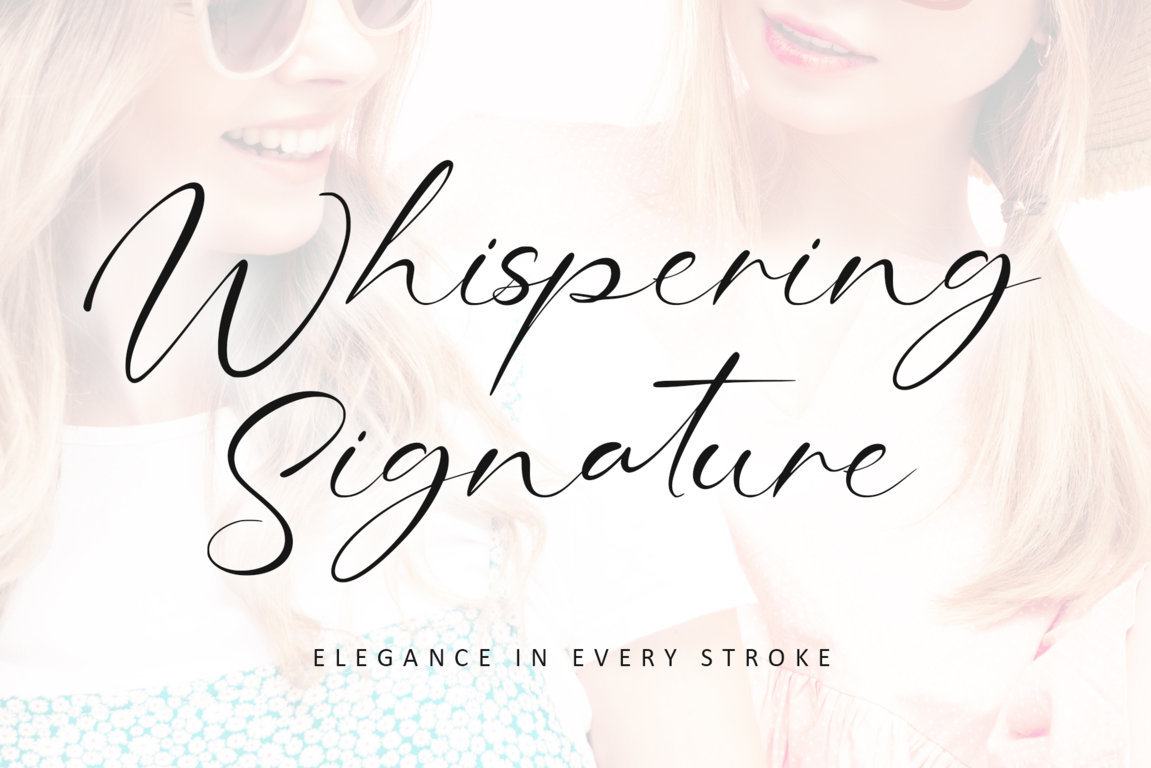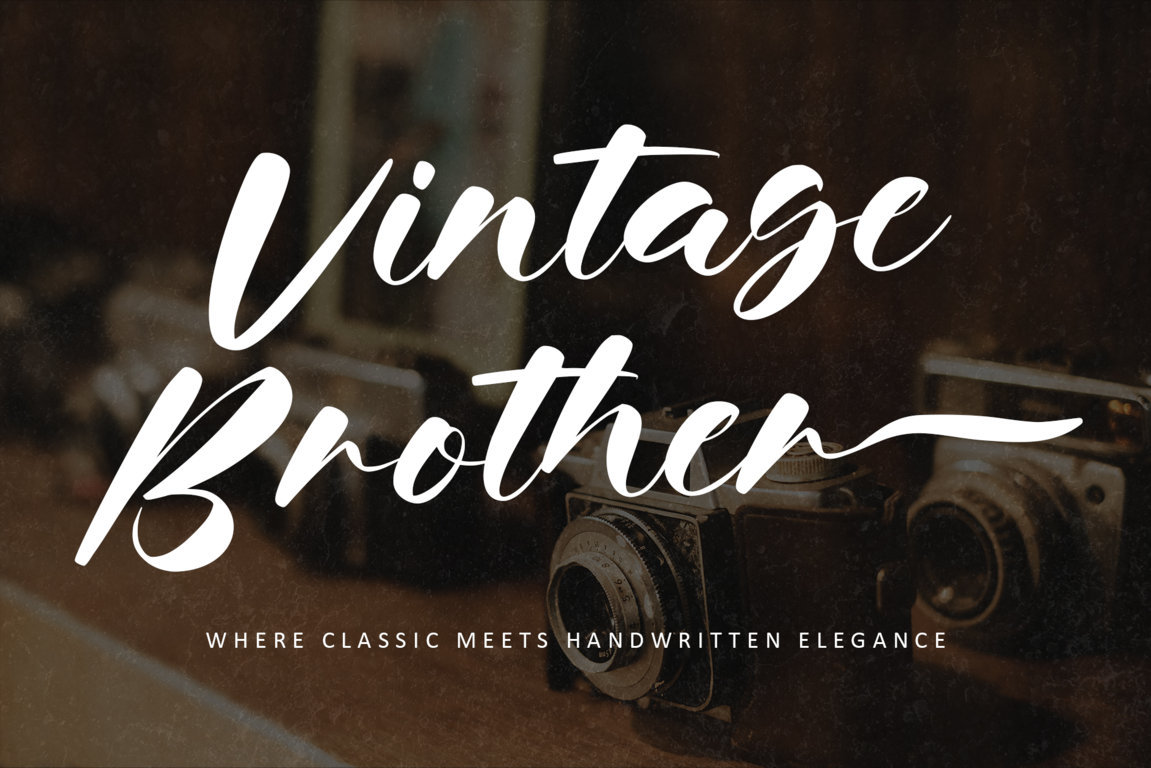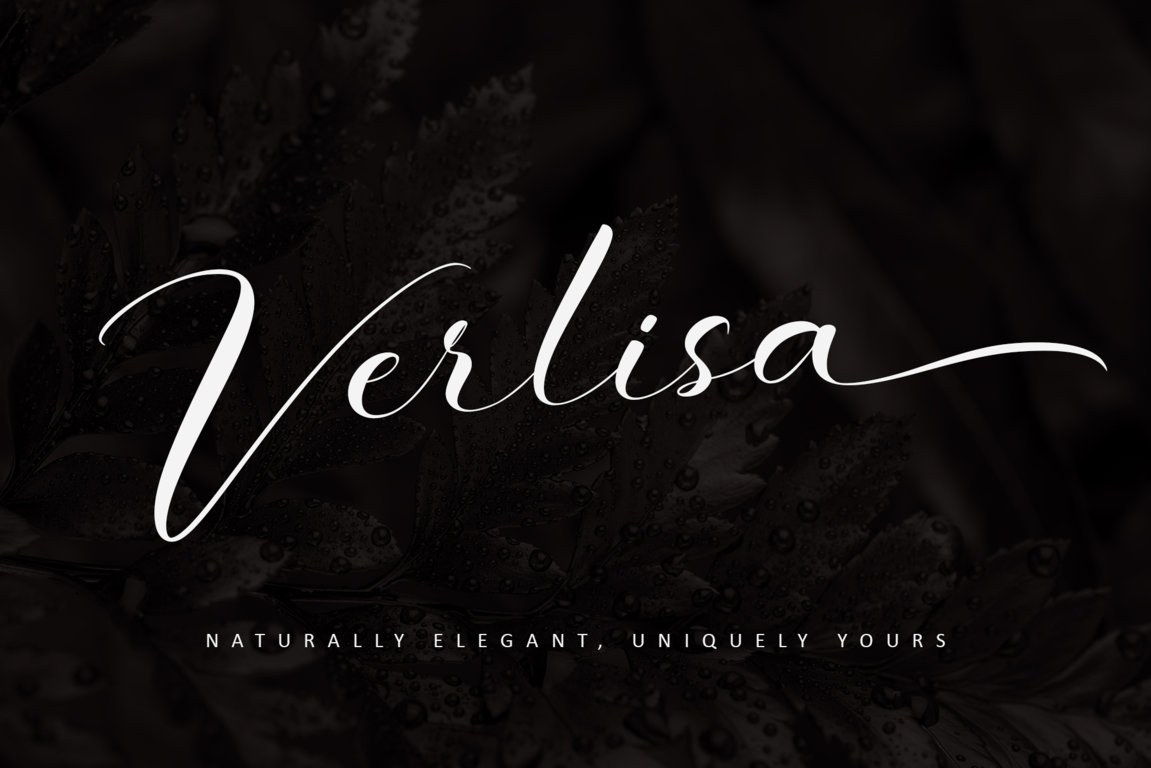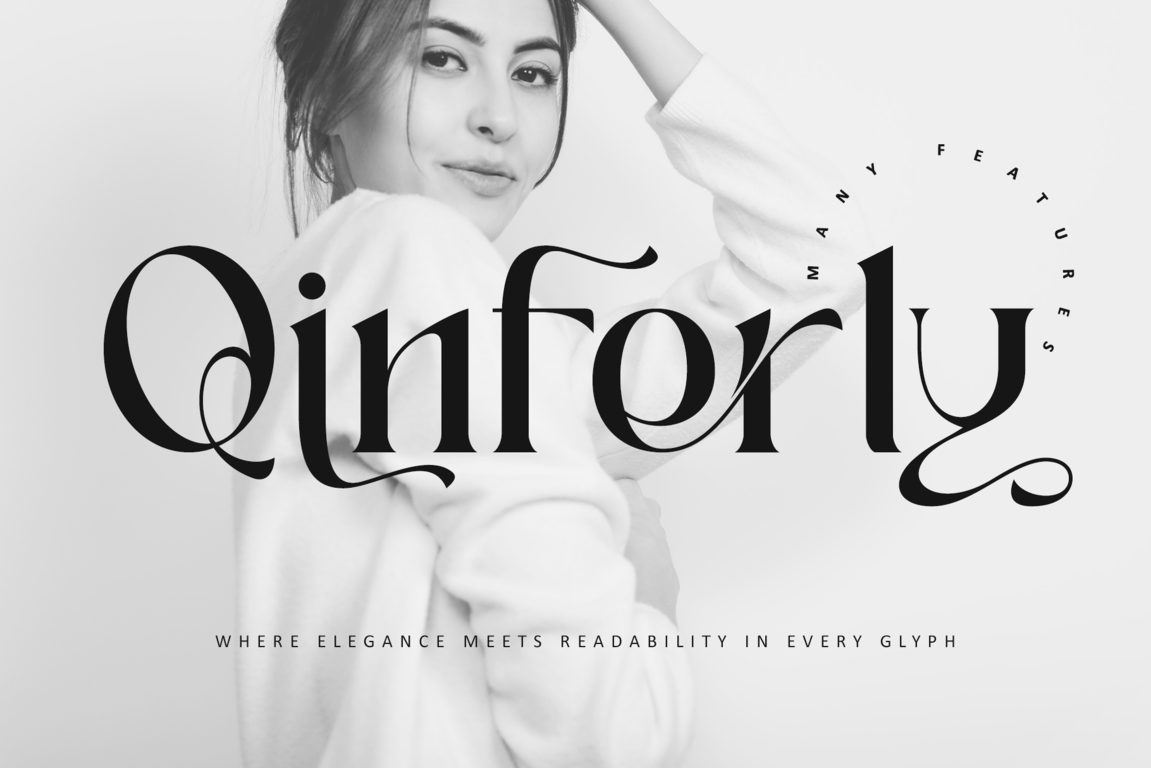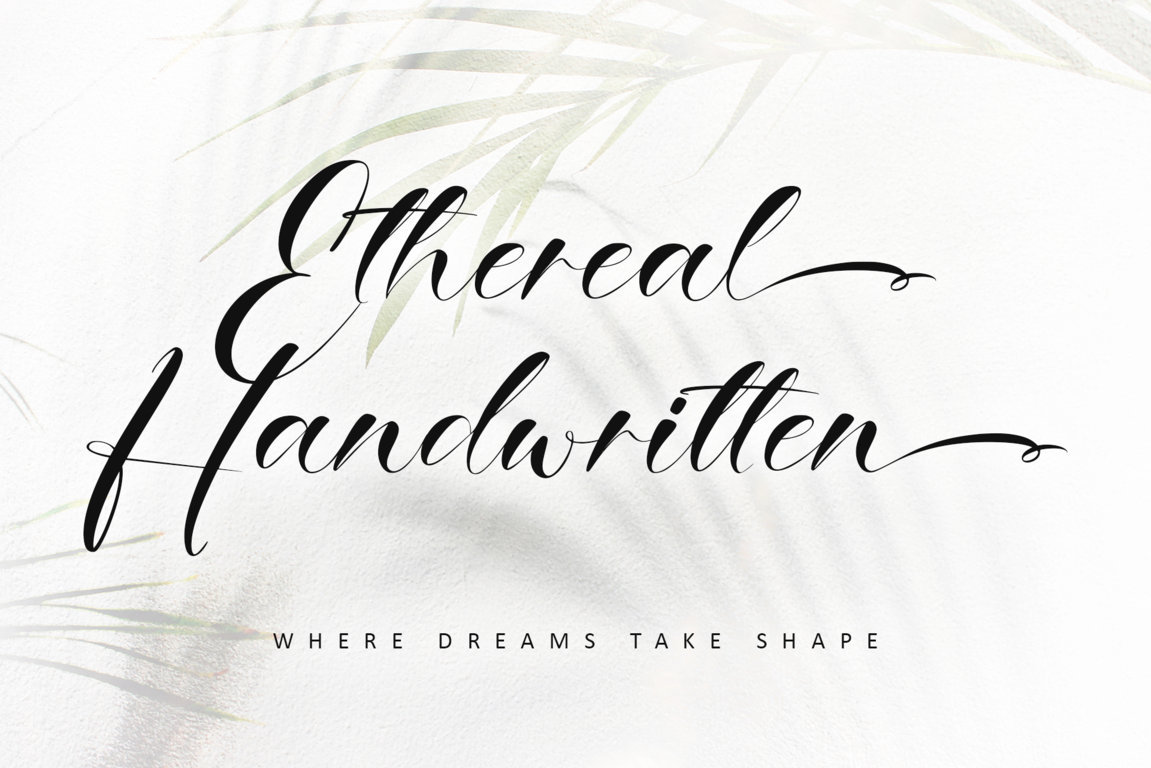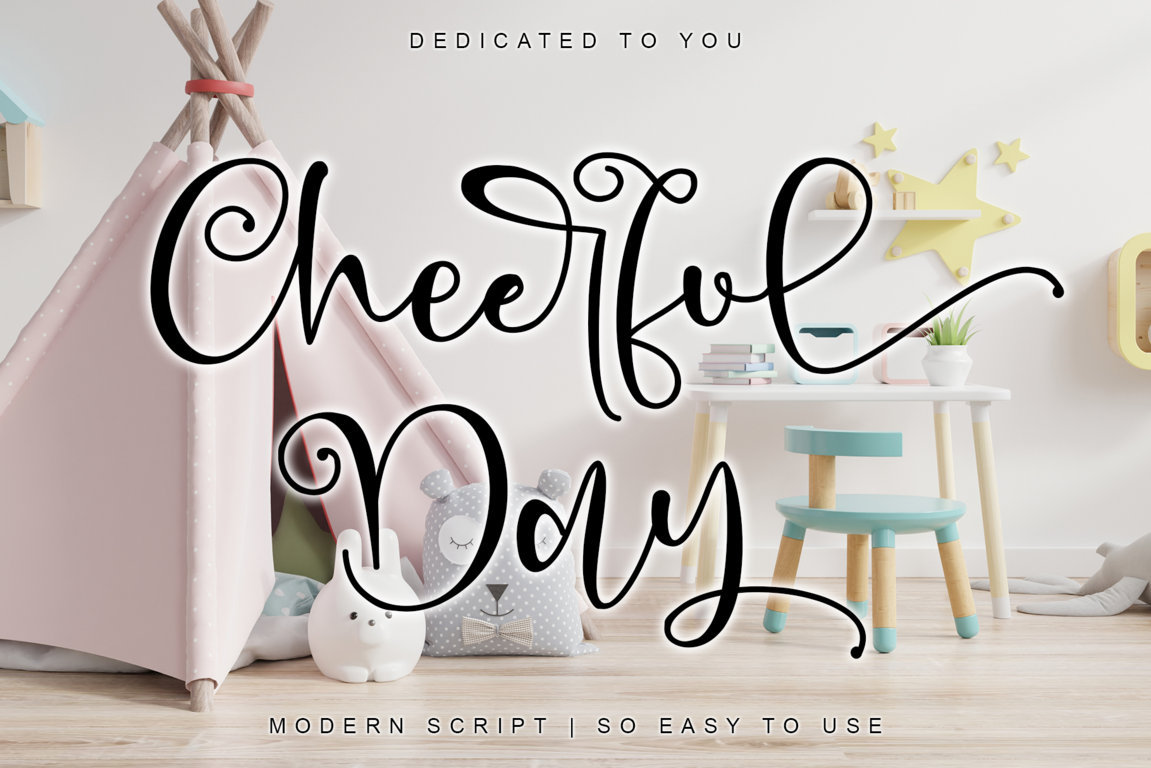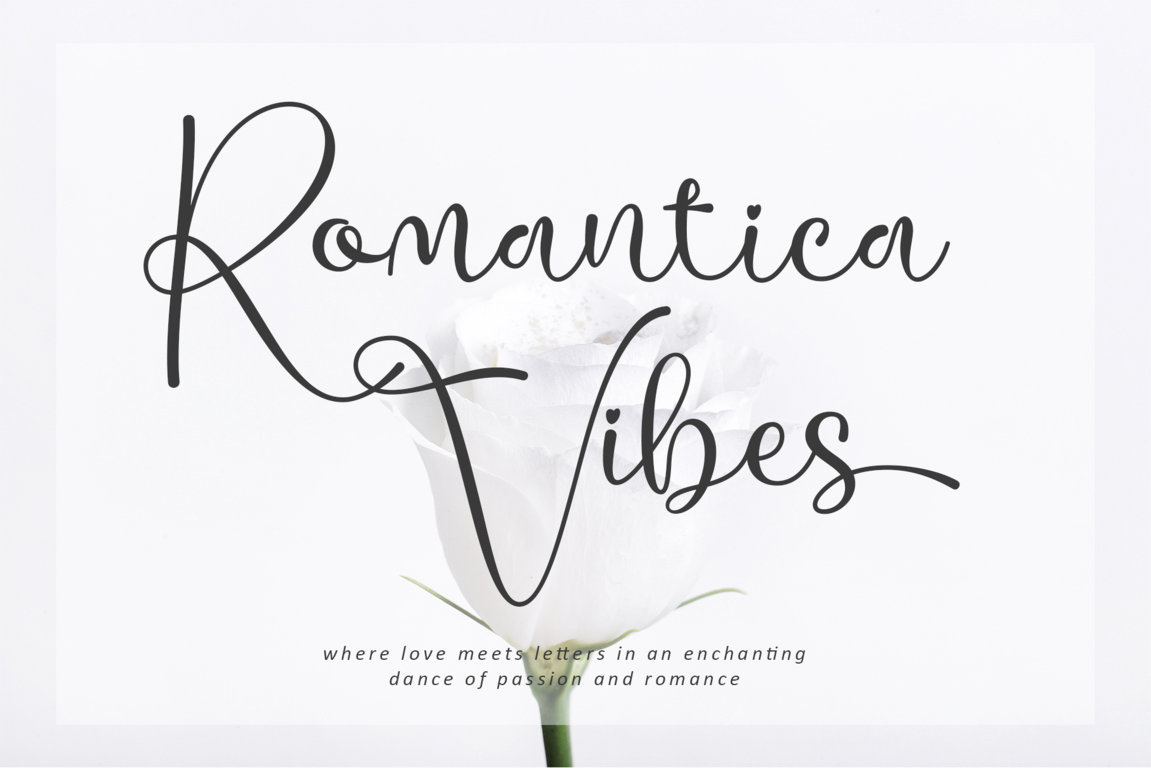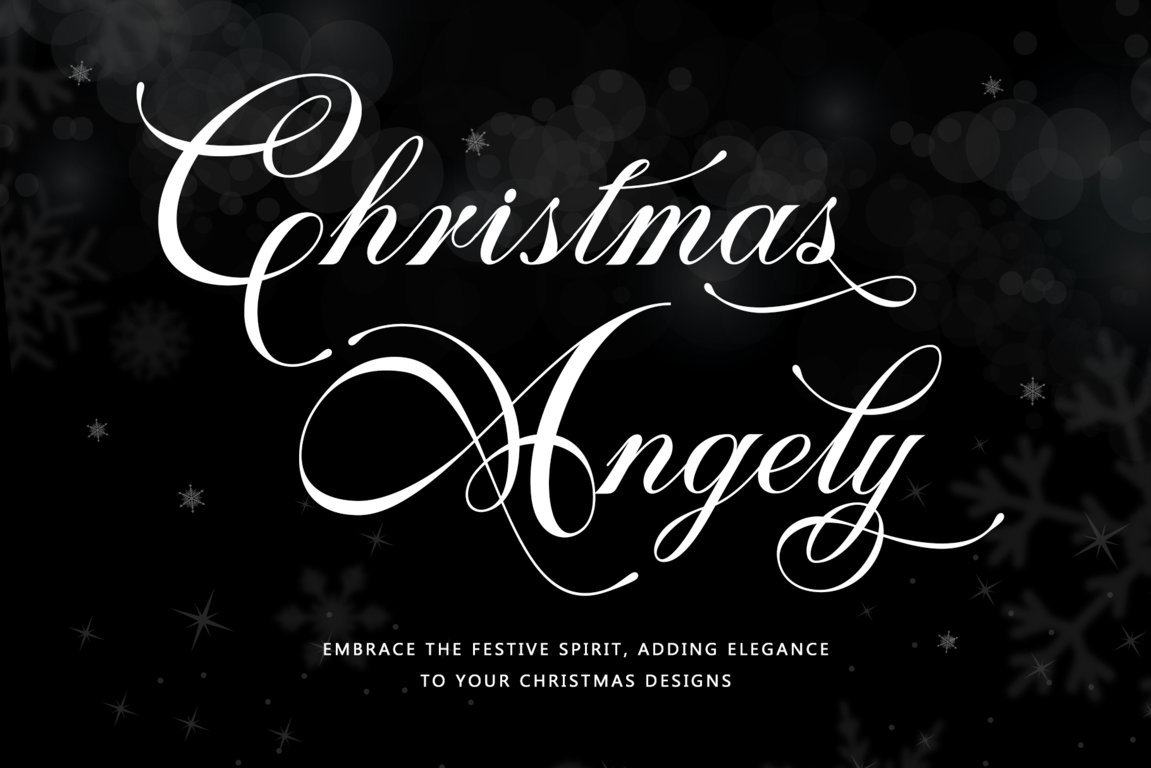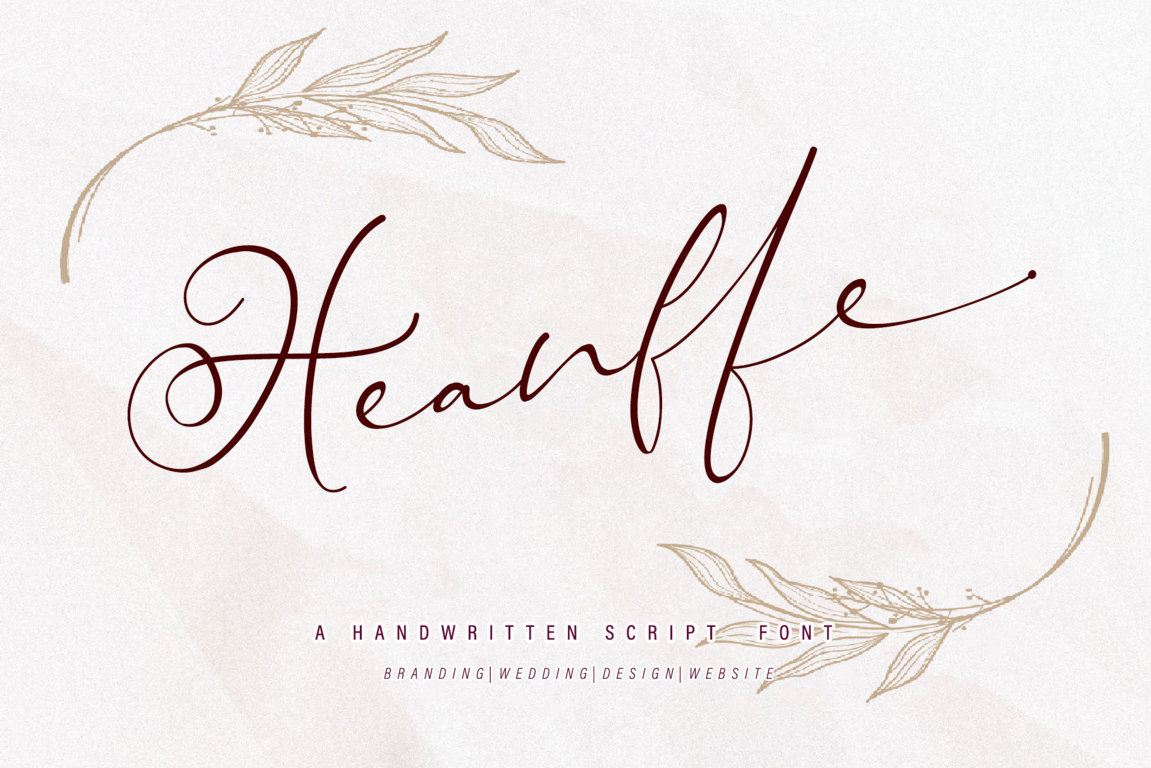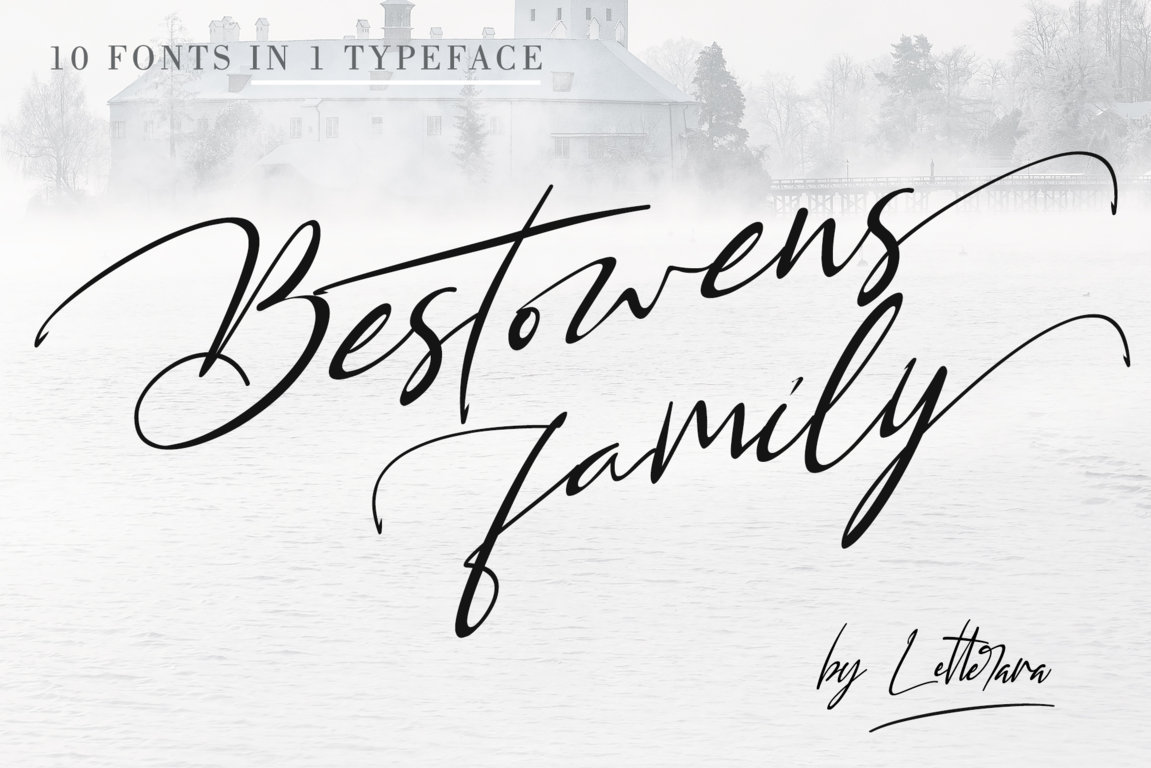
Top 25 Best Wedding Fonts That Add Elegance to Every Detail
Selecting the best wedding fonts is the first step in crafting a celebration that feels authentically you. From dreamy scripts to ornate serifs, the perfect font encapsulates the tone of your day. It’s a visual overture that lingers long after the celebration ends.
Key Takeaways:
• Even your typographic choice reflects your love story or your big day’s theme.
• Taking the beautiful, flowy approach is elegant, while bolder fonts make a more eccentric touch.
Set the Tone of Your Day with the Best Wedding Fonts
Think of typography as the voice behind the visuals that can be soft and romantic, bold and modern, or somewhere beautifully in between. The following handpicked selections offer the perfect balance of style and sentiment for every kind of celebration.
1. Whispering Signature
With delicate strokes and refined contrast, Whispering Signature brings emotional weight to every printed word. Each glyph beautifully dances in celebration of your union.
2. Mistletoe Magic
Every swirl and loop from Mistletoe Magic whispers romance intricately symbolizing your vows into visual poetry. Mistletoe Magic effortlessly blends timeless grace with modern sentimentality.
3. Perfecto Calligraphy
Evoking classical charm, Perfecto Calligraphy strikes a harmonious chord in bringing beautiful intimacy. Among the best wedding fonts, Perfecto Calligraphy adds elegance to every word.
4. Centralwell
Centralwell is a simplistic yet modern-centric wedding font. With highly legible lowercase letters, Centralwell also pairs expressive and unique uppercase letters.
5. Rustic Roadway
Rustic Roadway is a charming handwritten font that prioritizes the clarity of each letter over a continuous cursive style. With minimalism in mind, Rustic Roadway’s versatility never compromises elegance.
6. Fabregas
Fabregas is a handwritten script specially made for names. It crafts lavish layouts and visuals in every word, making Fabregas one of the best wedding card fonts.
7. Welldone
Welldone’s floral beauty breathes warmth into sterile paper, imbuing it with soul. With numerous intricate loops, your name will be memorable when written in Welldone.
8. Dreamy Angel
Thoughtfully curated, Dreamy Angel aligned with every aesthetic, including rustic modern, and fairytale. Dreamy Angel magically wedded relaxed and lighthearted aesthetics.
9. Arveton
Arveton is a signature typeface with delicate strokes and light touches. With naturally artistic letterforms, Arveton enriches menus, signage, and every cherished detail.
10. Vintage Brother
Radiating poetic softness, Vintage Brother turns stationery into storytelling. With its thickness, you can trust Vintage Brother to decorate even the furthest wedding element.
11. Verlisa
Verlisa is an elegant and modern-focused script style. From name cards to thank you notes, Verlisa evokes your fancy and classy aura.
12. Qinferly
If you’re avoiding the usual script style, use Qinferly. Qinferly’s display style highlights elegant, artful, and expressive, while keeping modern swashes.
13. Ethereal Handwritten
With finely tuned kerning and dreamy ligatures, Ethereal Handwritten exudes refinement. Its artistry ensures your intimate occasion feels personal and luxurious.
14. Cheerful Day
The best fonts for wedding invitations should inspire a whimsical vibe, like Cheerful Day. This font easily decorates your name with its artful letterforms and swashes.
15. Romantica Vibes
As the name suggests, Romantica Vibes brings lovely and romantic feelings to your text. Romantica Vibes even uses the love symbol as a title, hinting at your lovey-dovey times.
16. Christmas Angely
Christmas Angely borrows the calligraphic style, intricately decorating every letter you want. As one of the best wedding fonts, Christmas Angely results in a timeless silhouette.
17. Heanffe
With subtle grace and subtle drama, Heanffe ensures your wedding visuals are deeply personal. Each light and lithe line from Heanffe feels intimately made for your love.
18. Bestowens Family
Still revolving around beautiful typography, Bestowens Family takes a more daring approach. Bestowens Family uses a quick and precise script style rather than curvy.
19. Onlyone
Onlyone uses the oblique orientation, teetering the line between decoration and long text font. This feature makes Onlyone the most comfortable font to look at.
20. Mariosa
Mariosa revolves around luxury typography, exuding a strong visual and precise ornaments. When searching for fonts for wedding invitations, Mariosa certainly fit the task.
21. Assinatura
Assinatura leans towards the natural handwritten script. This style displays inconsistencies in letter kernings and placements, making Assinatura an enjoyable font for long-form text.
22. Antika
If you need the fancy loop ornaments in your text, use Antika. Antika’s letter design mirrors the meticulousness of your special day, acting ornately beautiful.
23. Hertina
Hertina is a graceful font with a highly detailed swashes selection. Its elegant and dynamic strokes make Hertina an easily readable font despite all the decorations.
24. Ramovia
Ramovia explores the wet fountain pen look, displaying fluid motions in precise strokes. The wide and sure lines from Ramovia subtly indicate the daring expression in your love story.
25. Love Miracle
Boldly displaying its mastery, Love Miracle uses thicker lines for its calligraphy. With the modern calligraphic standard, Love Miracle cleverly inserts love symbols in a highly legible style.
Also Read: Font for Clothing Brand Ideas That Elevate Your Label’s Identity
Elevate the Experience with the Best Wedding Fonts
When words become art, they resonate longer and deeper. Your wedding’s typographic style must bring cohesion, elegance, and authenticity to every touchpoint of your celebration. Let your final design choices reflect the sincerity behind your story with style.Exploring our wide range of ornate fonts for weddings brings you some inspiration, right? Well, rest assured, because at Letterara Studio, you can find more artistic and personalized typography for your big days!